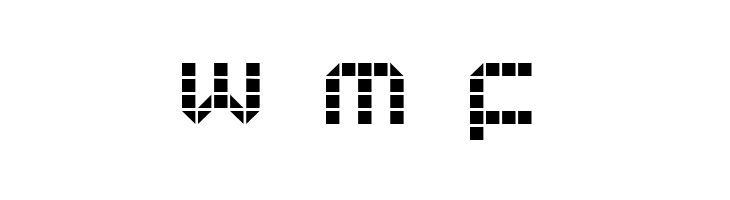
Maiers Neue Nr.8 Reduced Light Slanted Font
- Font: Maiers Neue Nr.8 Reduced Light Slanted
A geometric, pixelated font with a modern, digital aesthetic.